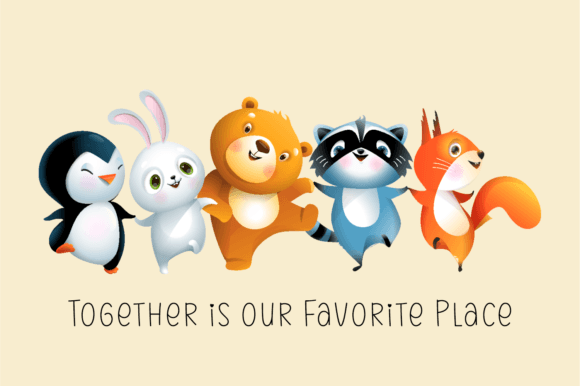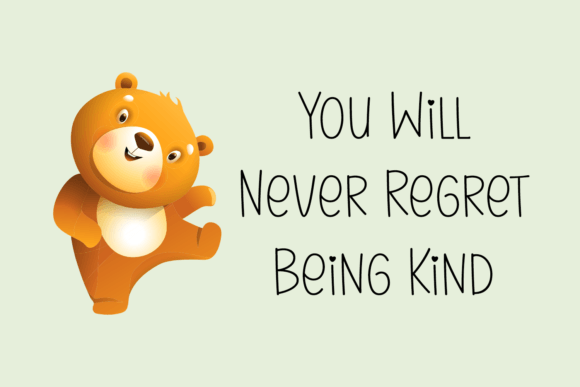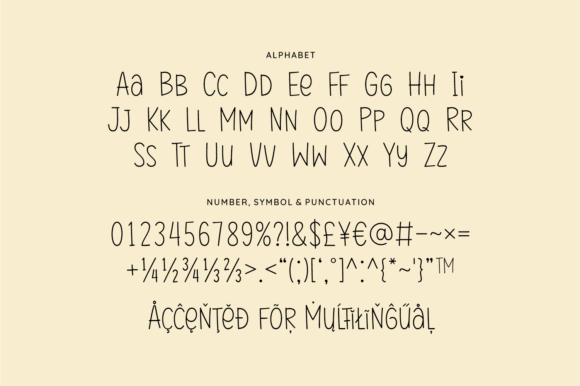
Cleo Nita Font: The Ultimate Guide to this Gorgeous Handwritten Typeface
Are you a designer or crafter looking for a font that exudes elegance and simplicity? Look no further than the Cleo Nita font! This stunning handwritten typeface has taken the design world by storm, and for good reason. In this comprehensive guide, we’ll dive into the world of Cleo Nita, exploring its features, uses, and benefits.
What is Cleo Nita Font?
Cleo Nita is a thin and minimalist handwritten font that has captured the hearts of designers and crafters alike. Its simple and delicate nature makes it perfect for a wide range of design projects, from websites and cards to magazines, posters, packaging, and more.
One of the standout features of Cleo Nita is its versatility. This font can be used in both digital and print designs, making it a valuable addition to any designer’s toolkit. Whether you’re creating a website, a brochure, or a social media graphic, Cleo Nita is sure to add a touch of elegance and sophistication.
Features of Cleo Nita Font
So, what makes Cleo Nita so special? Here are just a few of its key features:
- Thin and minimalist: Cleo Nita is a delicate font that adds a touch of elegance to any design.
- Handwritten: This font has a personal, handwritten feel that makes it perfect for designs that require a touch of personality.
- Versatile: Cleo Nita can be used in a wide range of design projects, from digital designs to print materials.
- Easy to read: Despite its delicate nature, Cleo Nita is surprisingly easy to read, making it perfect for body text and headlines.
Uses of Cleo Nita Font
So, what can you use Cleo Nita for? The possibilities are endless! Here are just a few ideas to get you started:
- Websites: Use Cleo Nita as a font for your website’s headers, titles, and body text.
- Cards and invitations: Add a touch of elegance to your cards and invitations with Cleo Nita.
- Magazines and newspapers: Use Cleo Nita as a font for your magazine or newspaper’s headlines and body text.
- Posters and flyers: Cleo Nita is perfect for creating eye-catching posters and flyers.
- Packaging: Use Cleo Nita on product packaging to add a touch of sophistication and elegance.
Benefits of Using Cleo Nita Font
So, why should you choose Cleo Nita for your design projects? Here are just a few benefits:
- Elegance: Cleo Nita adds a touch of elegance and sophistication to any design.
- Versatility: This font can be used in a wide range of design projects, making it a valuable addition to any designer’s toolkit.
- Easy to read: Cleo Nita is surprisingly easy to read, making it perfect for body text and headlines.
- Unique: Cleo Nita has a unique, handwritten feel that sets it apart from other fonts.
Tips for Using Cleo Nita Font
Here are a few tips for getting the most out of Cleo Nita:
- Use it sparingly: Cleo Nita is a delicate font, so use it sparingly to avoid overwhelming your design.
- Pair it with other fonts: Cleo Nita pairs well with other fonts, so don’t be afraid to experiment with different combinations.
- Adjust the size: Experiment with different font sizes to find the perfect balance for your design.
In conclusion, Cleo Nita is a stunning handwritten font that is perfect for designers and crafters looking for a touch of elegance and sophistication. Its versatility, ease of use, and unique feel make it a valuable addition to any designer’s toolkit. Whether you’re creating a website, a brochure, or a social media graphic, Cleo Nita is sure to impress.